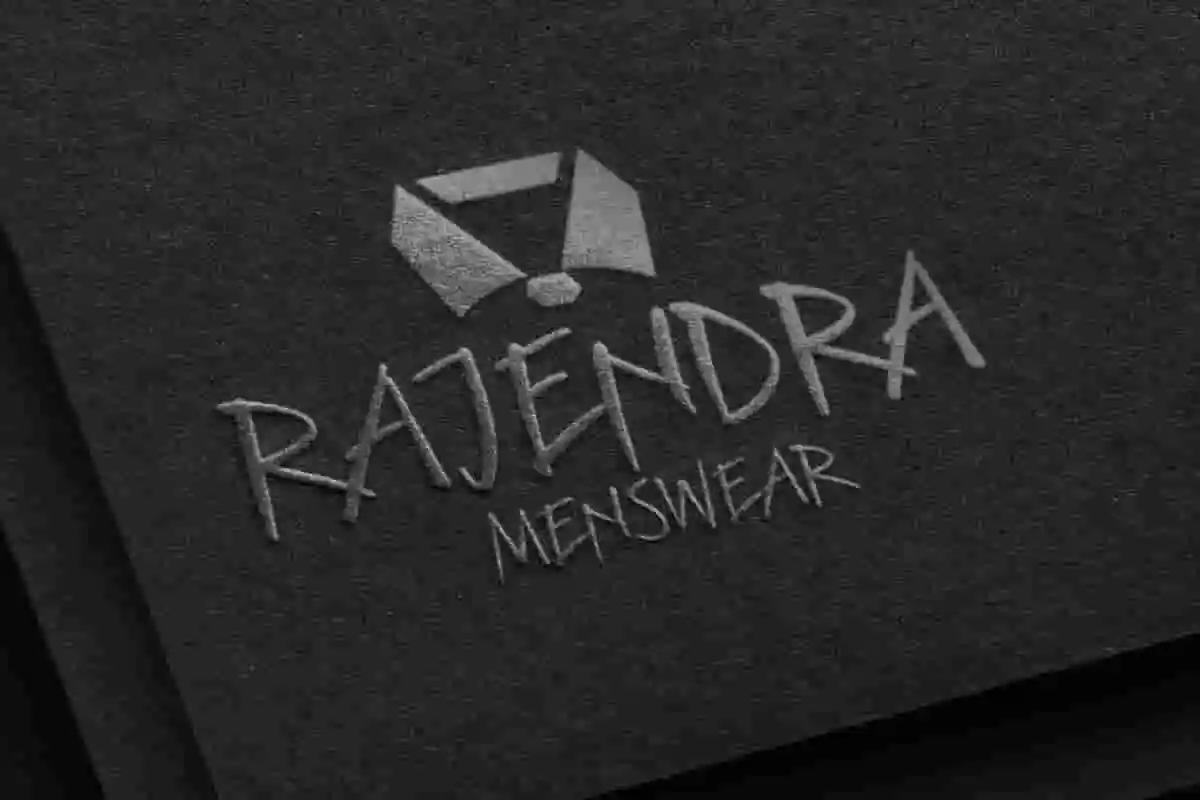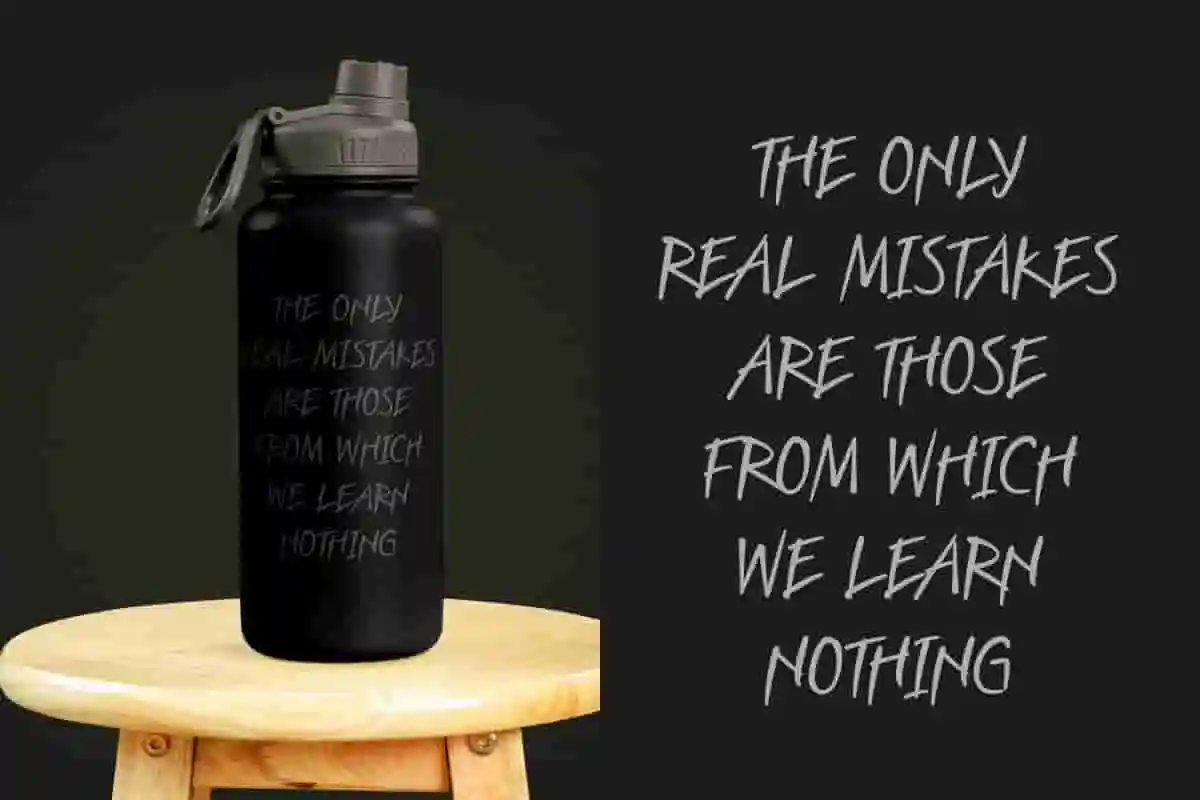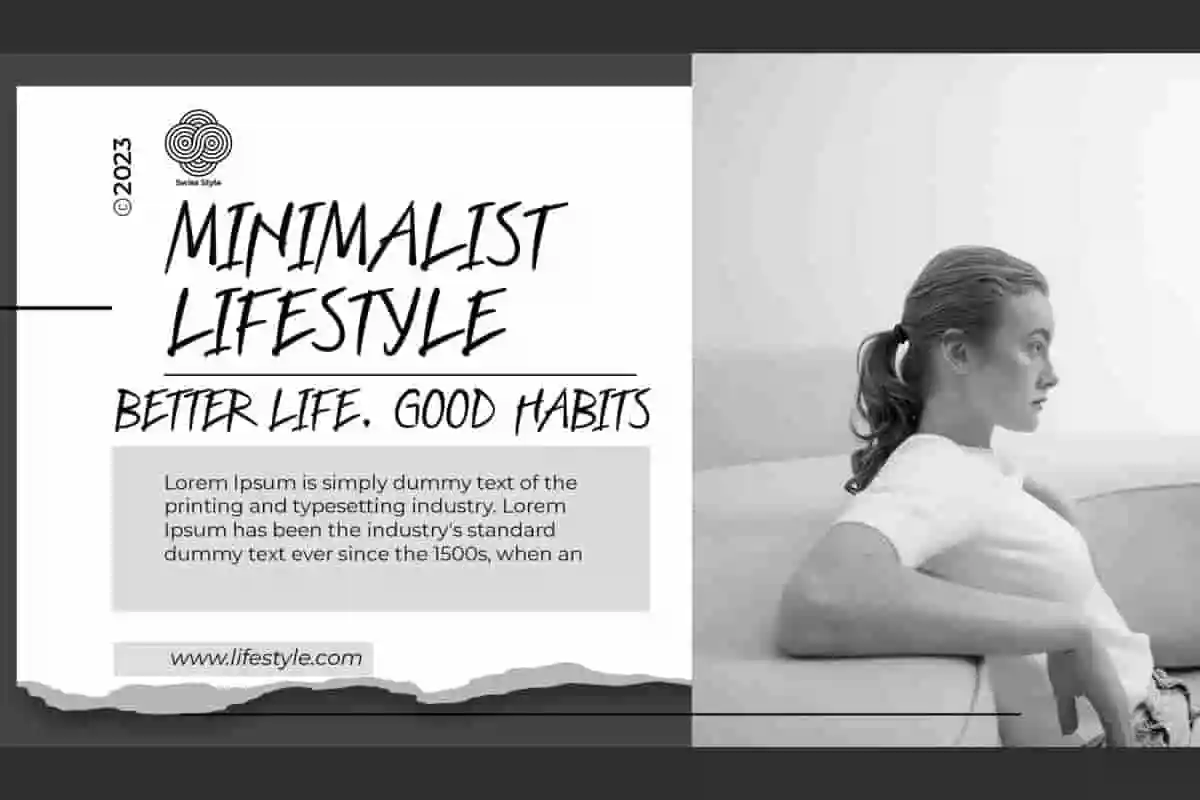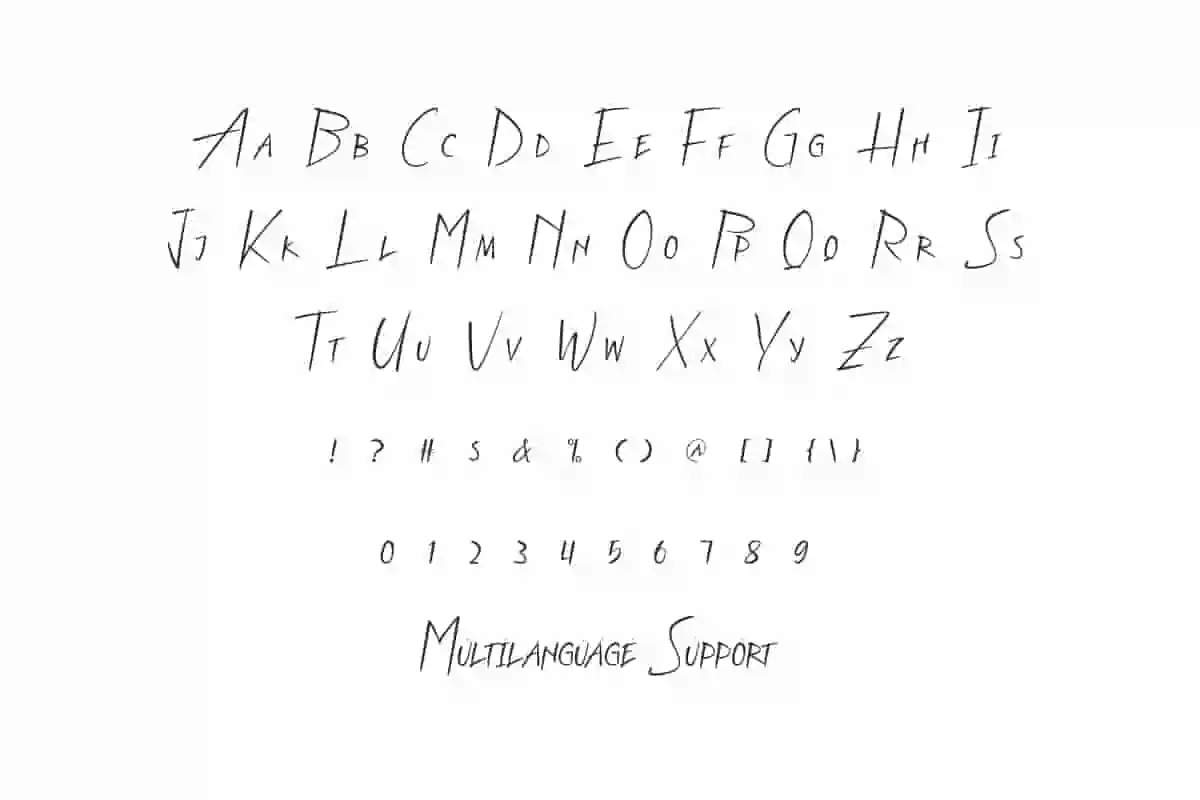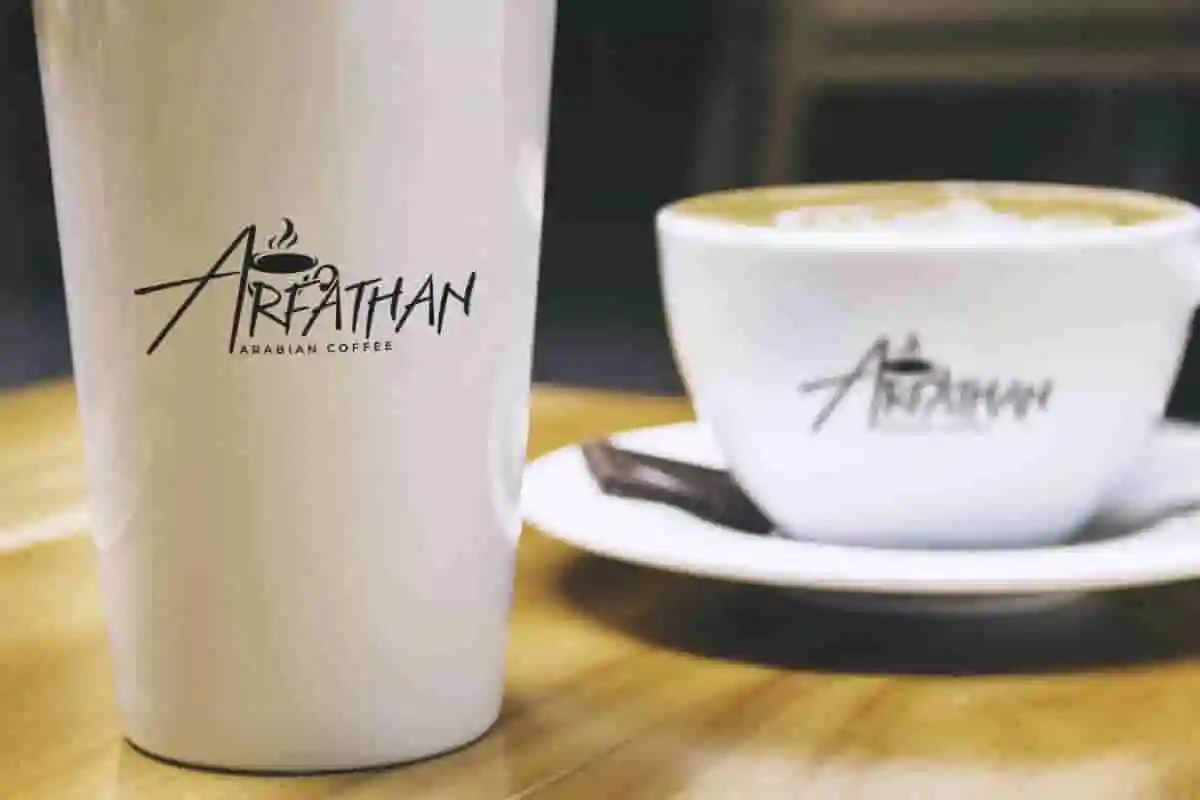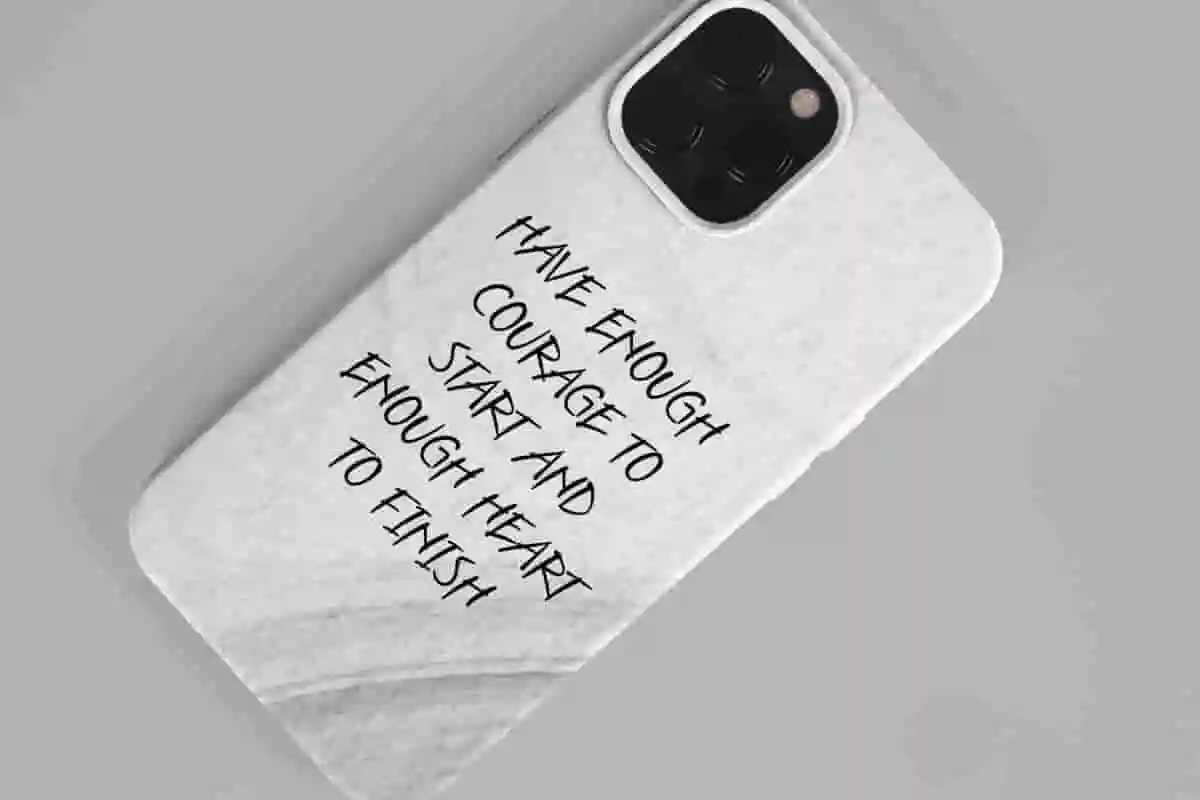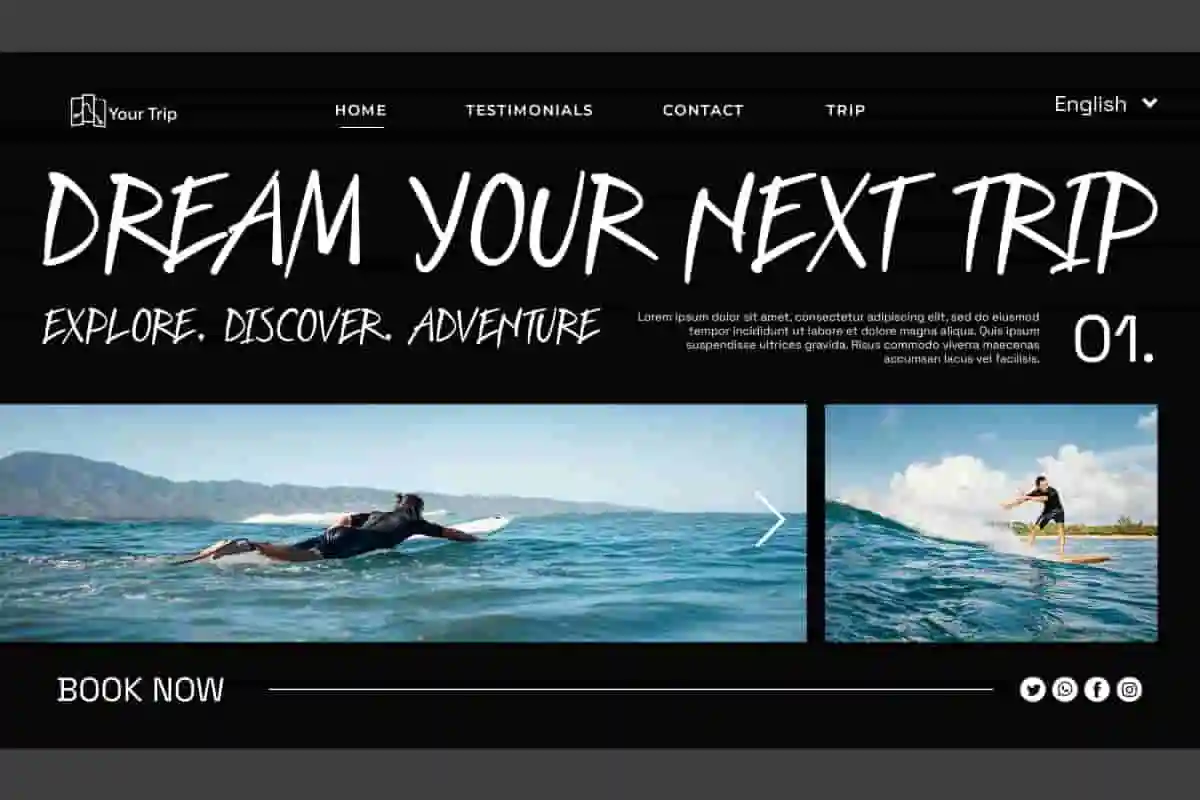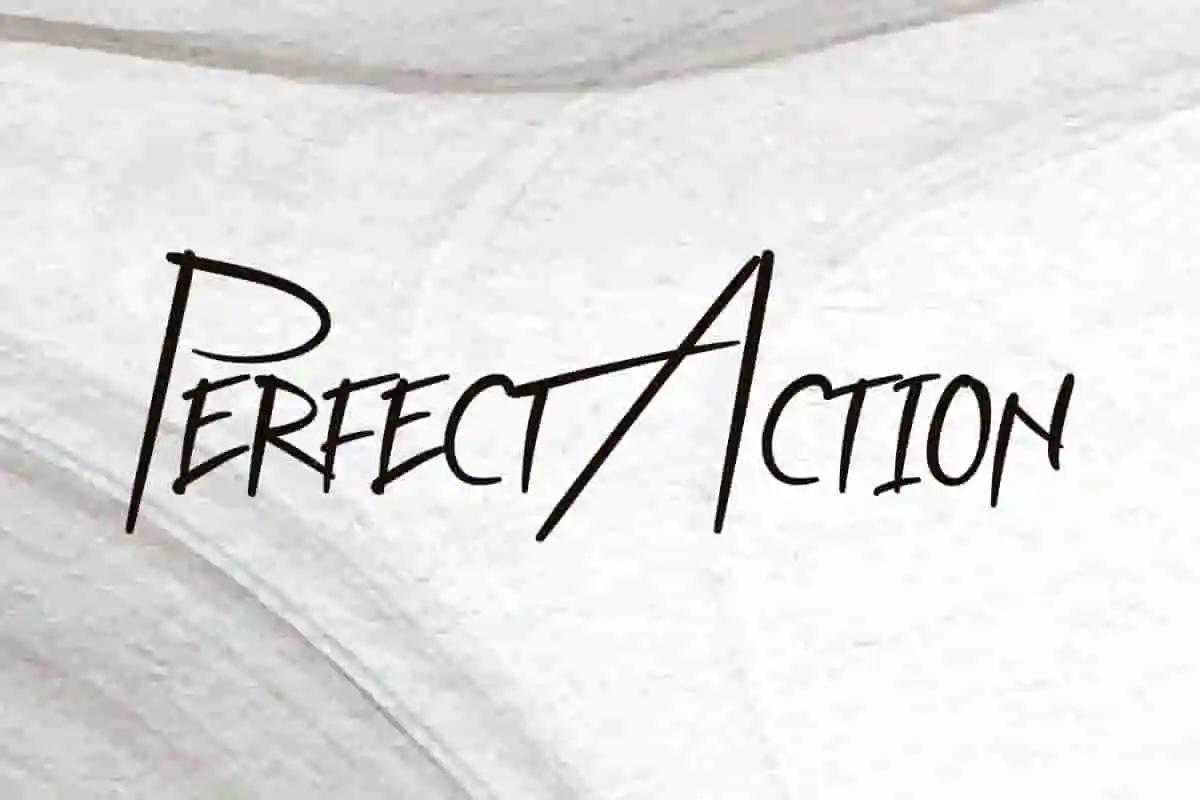
Perfect Action Display – Strong & Stylish Sans & Serif Font Duo
Designed for Bold Branding and Modern Design
Introducing Perfect Action Display, a bold and versatile font duo featuring both sans serif and serif styles. This typeface was crafted to deliver impact and clarity in every use—perfect for designers who want bold, clean, and professional typography.
Ideal for Logos, Posters, Social Media & More
Perfect Action Font is a dynamic and energetic handwriting display font. This font can convey an impression of enthusiasm and courage through its characters, making it suitable for use in various types of business, such as advertisement, author and writer, automotive, sports, game, cafe, fashion, handicrafts, homeware, printing, publishing, and more!
Perfect Action Font includes full set of Uppercase and Lowercase Basic Characters, Numerals, Punctuation, and Symbol. This font conveys a sense of spontaneity and boldness, making it suitable for a variety of design needs that require a strong and free-spirited character, such as brand image, brochure, stationery, cover, custom design, invitation, label, poster, product packaging, quotes, screen printing, website, etc.